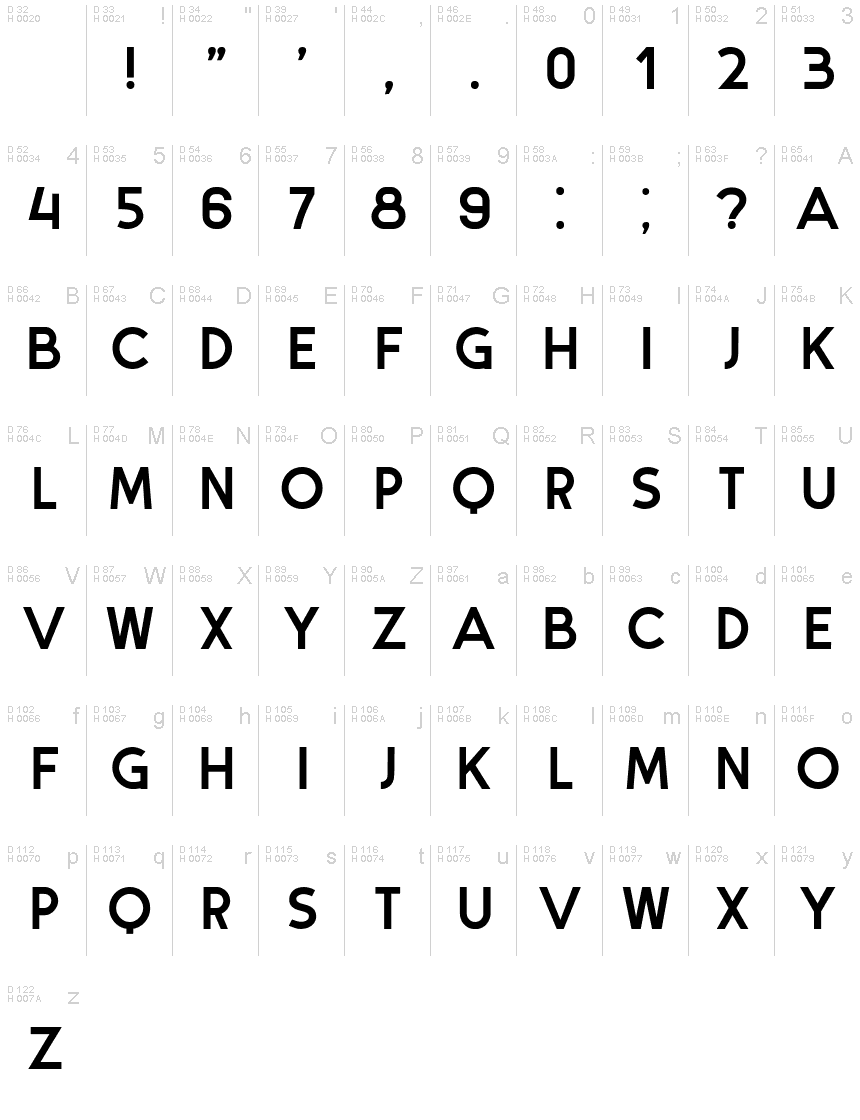
Disoriented Regular
Introducing Disoriented, a modern and clean sans serif font designed by Vladimir Nikolic. It's perfect for creating contemporary designs in a variety of projects such as websites, logos, and posters. Its sleek lines and elegant curves make it an ideal choice for any project that requires an air of sophistication.